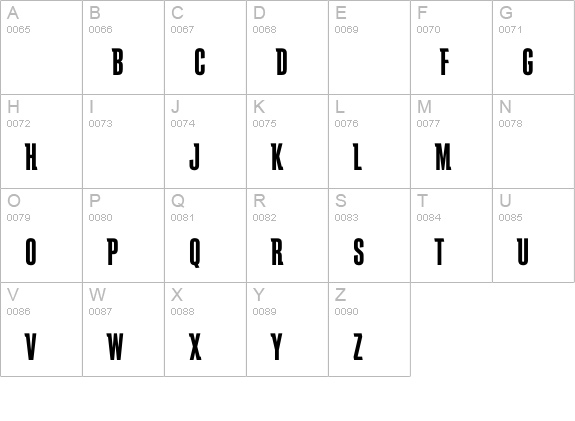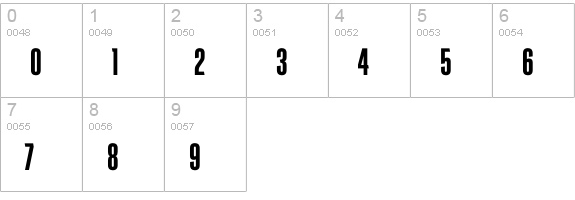
SchindlerBold Font Details
SchindlerBold is a visually stunning font that exudes elegance and sophistication. Its bold and commanding presence makes it the perfect choice for any design project that requires a touch of grandeur. The carefully crafted letterforms are characterized by their strong lines and distinct curves, giving SchindlerBold a unique and memorable appeal. This font is not only visually striking but also incredibly versatile. Its bold weight allows it to stand out on any medium, whether it be print, digital, or even signage. SchindlerBold is particularly well-suited for headlines, titles, and logos, as it effortlessly captures attention and leaves a lasting impression. One of the most remarkable aspects of SchindlerBold is that it is freely available to download at FontsMarket.com. This means that designers and creatives can add this exceptional font to their collection without any cost. SchindlerBold's accessibility ensures that everyone can benefit from its remarkable aesthetic qualities, regardless of their budget or resources. Download SchindlerBold today from FontsMarket.com and experience the power and beauty of this captivating font. Whether you're working on a branding project, editorial design, or any other creative endeavor, SchindlerBold will elevate your work to new heights. With its free availability and unmatched visual appeal, SchindlerBold is a true gem in the world of typography.